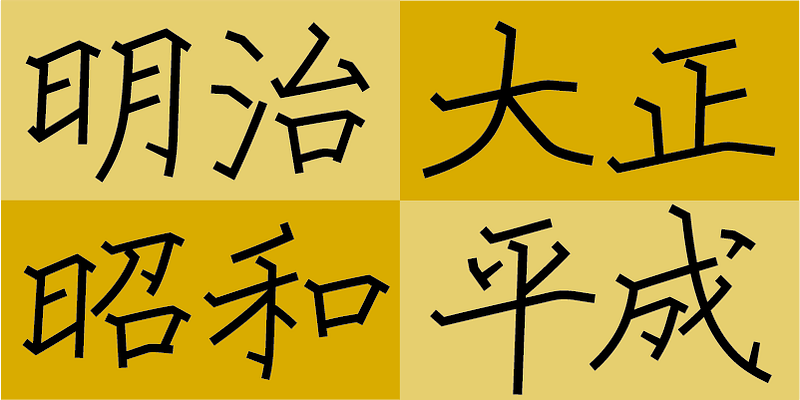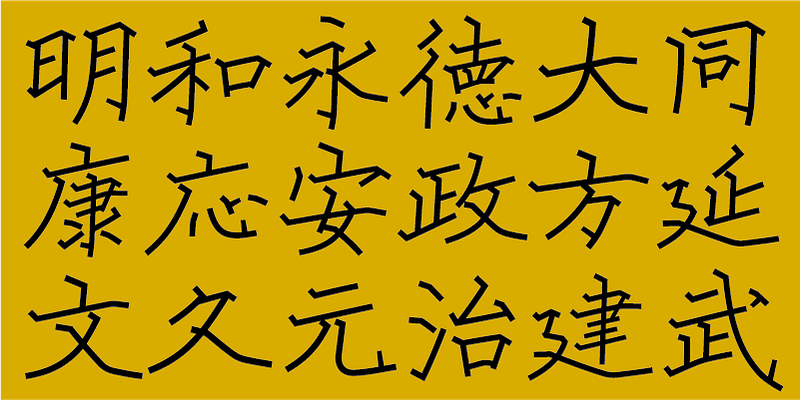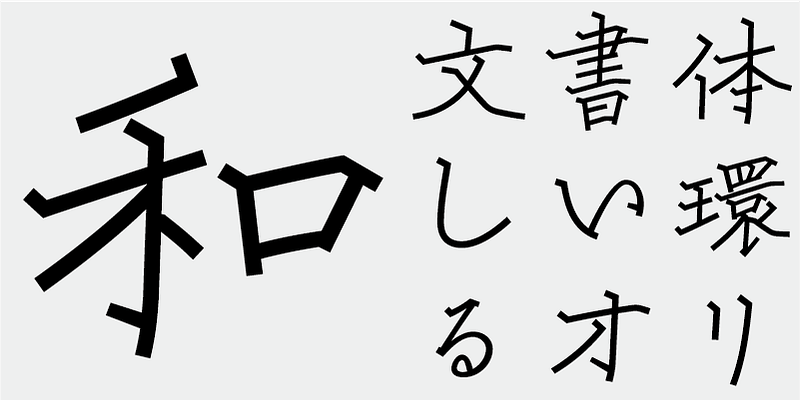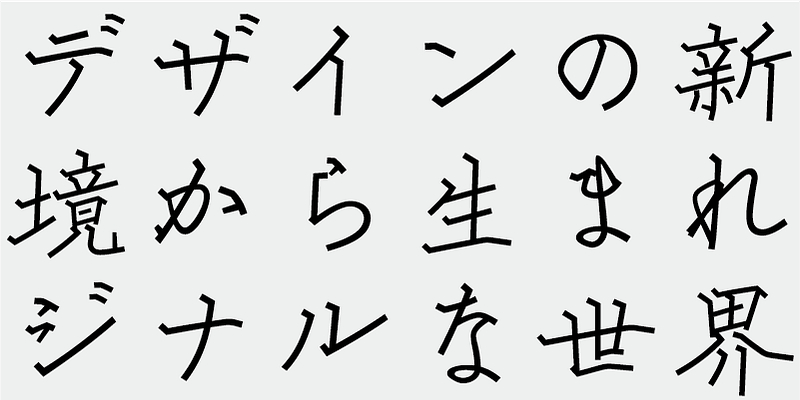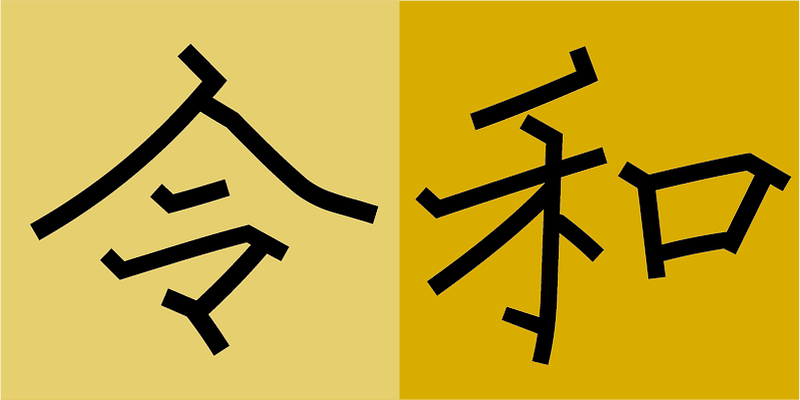
Kai is a kaisho-style (kaishu, regular script) typeface characterized by glyph structures with a dignified and masculine look.
The typeface has linear structures deliberately designed to retain visual softness. The kana characters are a redesign of the Kodoken Shincho-tai typeface.
Each character has a beautiful letter form and appearance, with its letter form typically enclosed in a circle. This typeface follows the design principle of inscribing the type body in a circle regardless of the aspect ratio of the glyph shape. As each glyph has a consistent optical center of gravity, the composed text is beautiful.
For example, when constrained in a square shape, the glyph structure of characters such as 曇, which have many character elements lined up horizontally or layered vertically, will become distorted. When naturally lined up or layered, the glyph shapes may become tall or the counter spaces large, but this is inevitable due to the inherent nature of each of the glyphs.
A gothic (sans-serif) typeface has strokes with relatively even widths, but the stroke widths need to be carefully adjusted. Characters with fewer strokes look larger and lighter, while characters with many strokes tend to look darker or filled, as the stroke density grows. I made great efforts to keep the density of strokes in places where many stroke elements, such as left-hand and right-hand kanji radicals, are overlapping or closely positioned. It is important to not simply arrange stroke elements evenly within the type body, but to make the spaces between stroke elements as visually even as possible. By paying attention to these points when aligning the density of strokes and character elements, I tried to make the inherent beauty and charm of each letter form shine through.